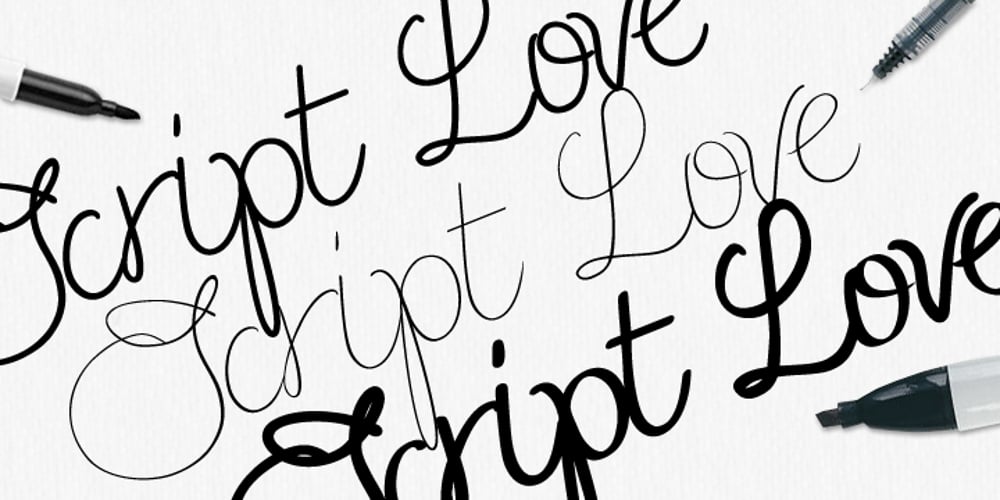
Script Love Font Family was designed by Natsuko Hayashida and published by Okaycat. Script Love contains 3 styles and family package options. “Script Love” is a connected cursive script appearing as hand written in three weights: fine pen, pen & marker. Script Love features extended characters, containing West European diacritics & ligatures, making it suitable for international environments & publications.